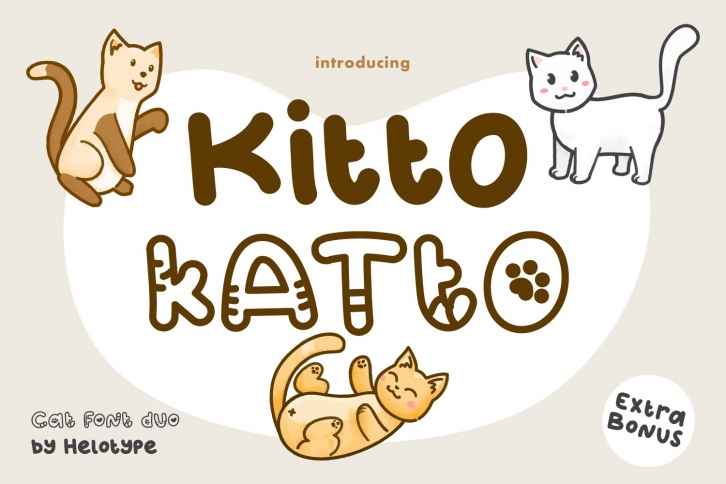
Kitto Katto Cat Duo with Bonus is a trendy and unique font with an authentic style. It was designed by Helotype and it's a great choice for creative people who need such a font. It was released on May 26, 2021 and the file size is 8.77 MB. Kitto Katto Cat Duo with Bonus will add an organic vibe to any design idea!